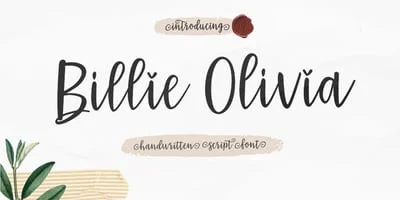
Billie Olivia Font
Billie Olivia Font excels in elegant wedding invitations, luxury brand logos, fashion magazine layouts, boutique signage, premium cosmetic packaging, sophisticated business cards, high-end restaurant menus, artistic book covers, refined social media posts, and upscale retail displays. Its graceful character makes it perfect for projects requiring feminine elegance and modern sophistication.
What makes Billie Olivia Font exciting is its perfect balance of contemporary style and timeless femininity. The font features delicate letterforms with subtle curves and refined details that create an air of sophistication and grace. Its elegant stroke variations and carefully crafted spacing give designs a luxurious feel while maintaining exceptional readability across all applications.
The Billie Olivia Font family includes Regular, Bold, Light, Italic, Script, and Condensed variations. Each style maintains the font's elegant essence while offering different levels of formality and visual weight. The comprehensive character set includes stylistic alternates, ligatures, swash characters, and extensive punctuation for enhanced typographic flexibility.
Professional designers consistently choose Billie Olivia Font for projects demanding refined typography solutions. The font's sophisticated appearance elevates brand identities and creates memorable visual experiences that resonate with discerning audiences. Its versatility spans from delicate script applications to bold headline treatments.
Whether you're designing luxury packaging, creating wedding materials, or developing premium brand identities, Billie Olivia Font provides the perfect combination of elegance and functionality. The font's meticulously crafted letterforms ensure consistent quality across various media formats while maintaining its sophisticated character.
The distinctive beauty of Billie Olivia Font makes it exceptional for creating emotional connections through typography. Its feminine grace and modern appeal work seamlessly in both traditional print applications and contemporary digital platforms. The font performs beautifully across different screen sizes and resolutions.
Elevate your creative projects with Billie Olivia Font and discover how premium elegant typography can transform your designs. This remarkable typeface combines classical beauty with modern functionality, making it an indispensable tool for designers seeking sophisticated typographic solutions.